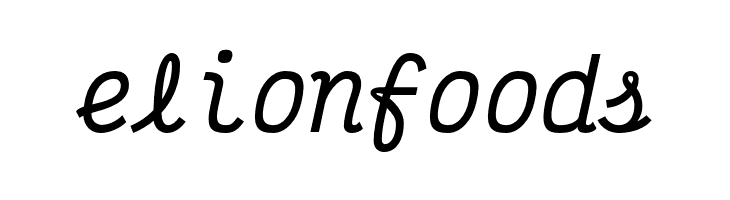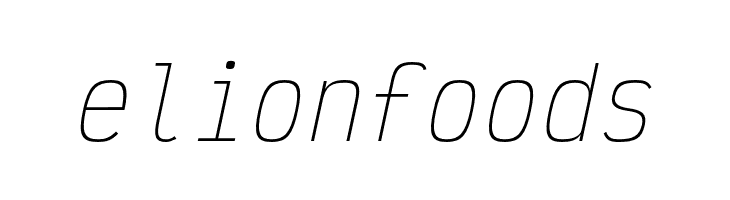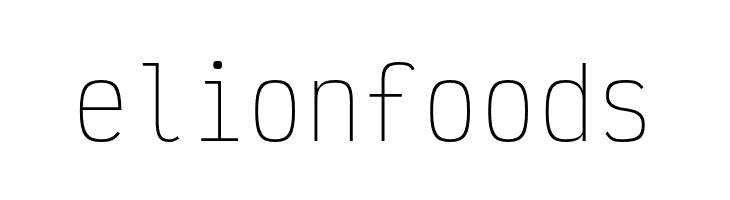
A monospaced, oblique font with a modern, technical look.
A modern, oblique monospaced font ideal for coding and technical use.
A modern, monospaced font with a clean and geometric design, perfect for coding.
A modern, semi-bold monospaced font ideal for coding and data presentation.
A modern monospaced font with semi-bold weight and italic style, ideal for coding.
A modern, monospaced font with semi-bold weight and oblique style, ideal for coding.
A modern, thin monospaced font with clean lines and consistent spacing.
A thin, italicized monospaced font with elegant, consistent strokes.
A thin, oblique, monospaced font with a modern and sleek design.